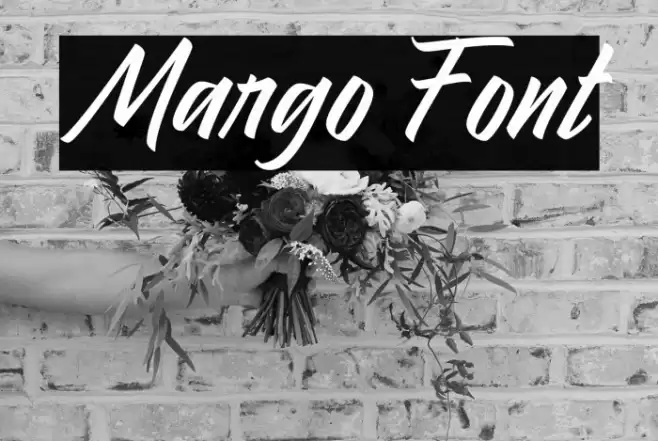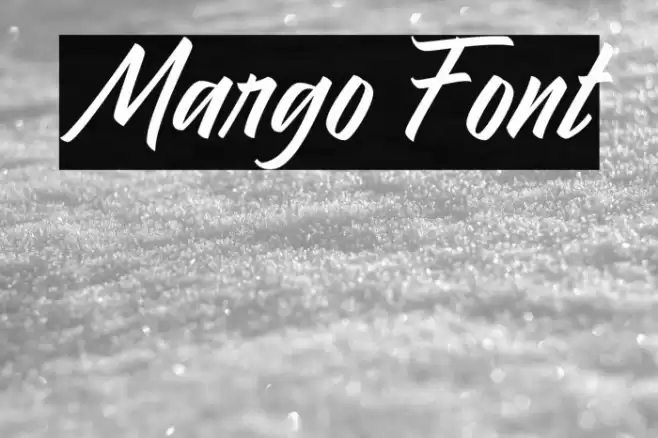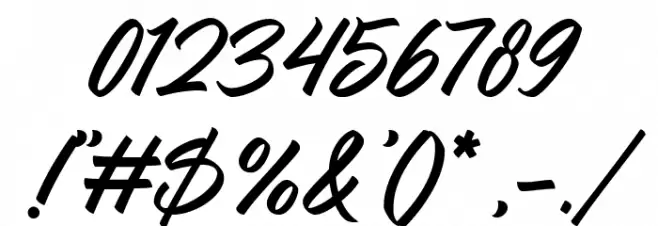
Margo Font
This font features a dynamic and expressive script style, characterized by its fluid, cursive strokes that convey a sense of motion and elegance. The uppercase letters are bold and slightly slanted, giving them a sense of urgency and flair. The lowercase letters maintain a consistent flow, with smooth connections between characters, enhancing readability while preserving the artistic style. Numbers and special characters are designed with the same attention to detail, ensuring a cohesive look across all elements. The font's overall appearance is both modern and stylish, making it suitable for a variety of creative applications.
A dynamic and expressive script font with fluid, cursive strokes from Uncategorized fonts.
- Proposed Projects: Ideal for branding, invitations, greeting cards, and creative projects requiring a personal touch.
- Use Case: Logos, Headlines, Invitations